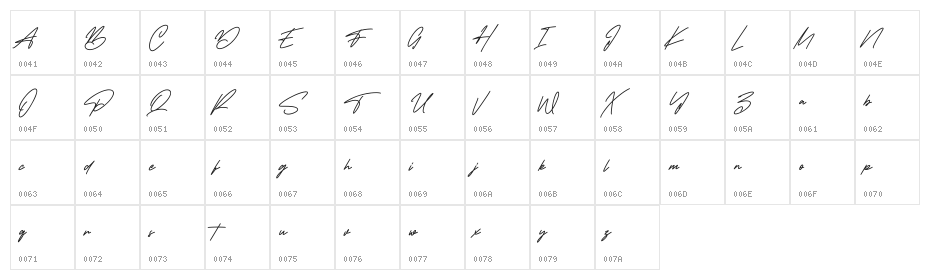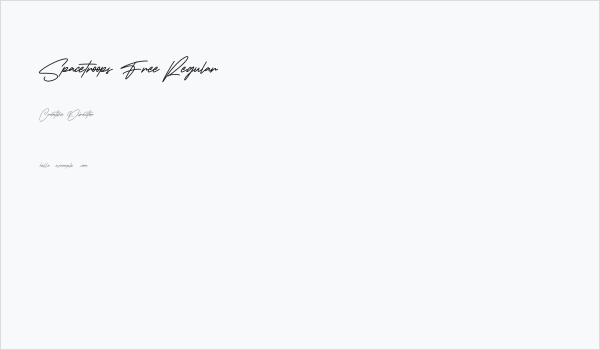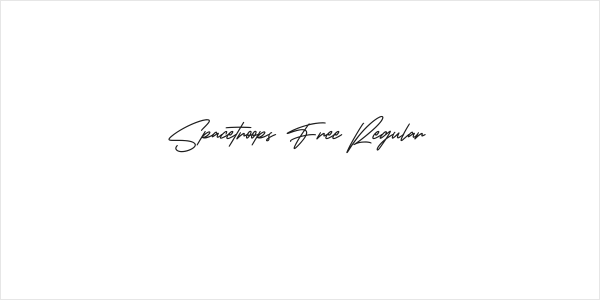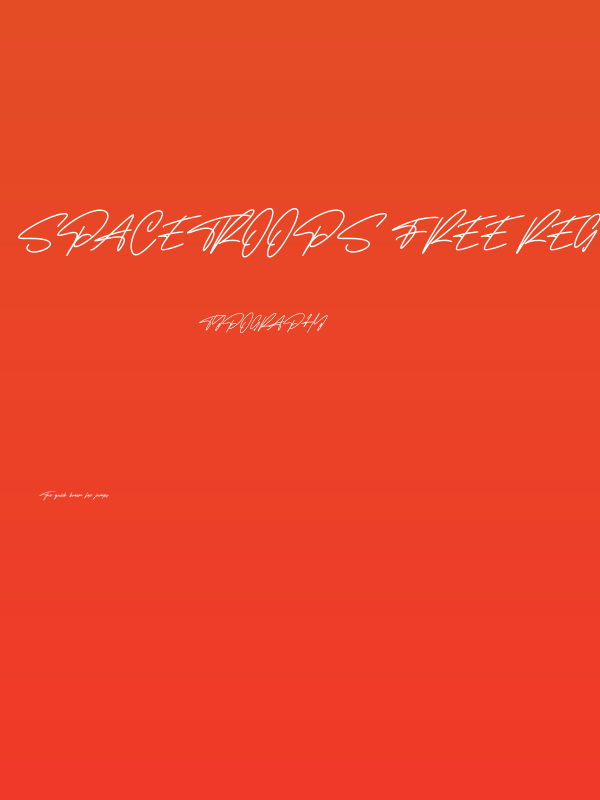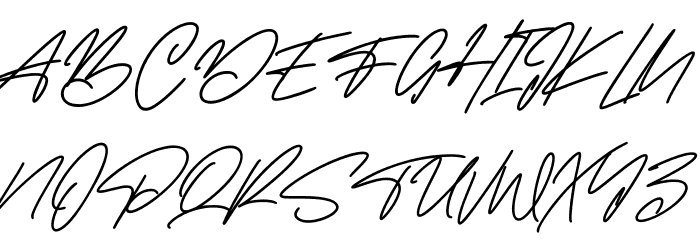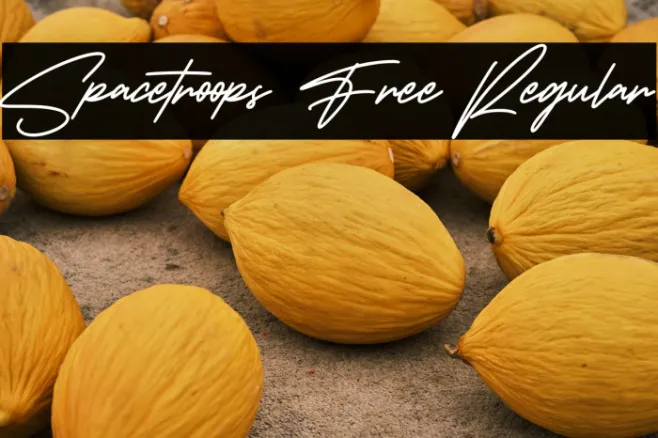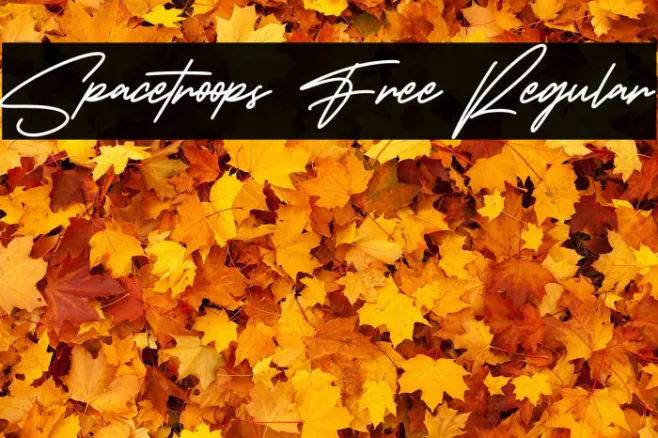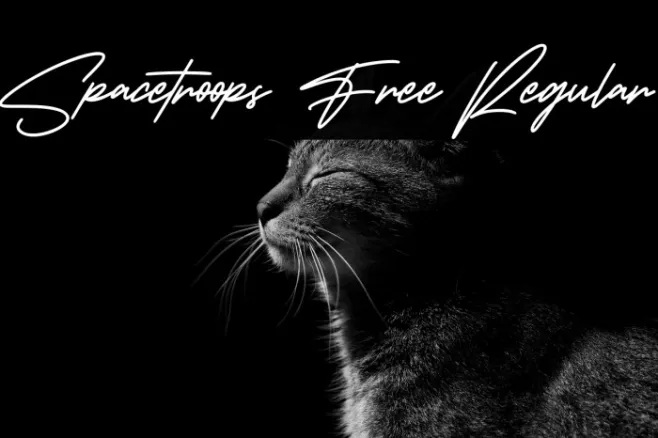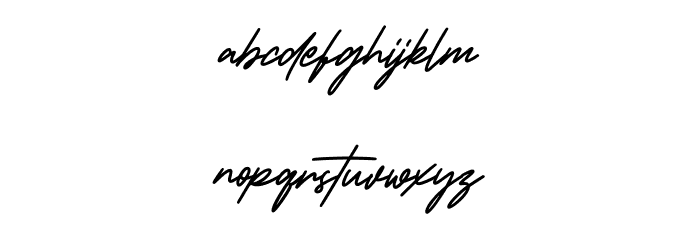
Spacetroops Free Regular Font
Spacetroops Free Regular Description
This font features an elegant, flowing script style that mimics the fluidity of natural handwriting. The characters are connected with smooth, sweeping lines, giving it a dynamic and lively appearance. The uppercase letters are bold and prominent, while the lowercase letters maintain a consistent flow, enhancing readability. The font's design is both sophisticated and approachable, making it suitable for a variety of creative applications. Its unique style is characterized by a balance of thick and thin strokes, adding a touch of elegance and flair. The overall impression is one of modernity with a hint of classic charm, making it versatile for both formal and informal uses.
| Use Case | Logos, Invitations, Social Media |
| Proposed Projects | Ideal for wedding invitations, branding, logos, and social media graphics. |